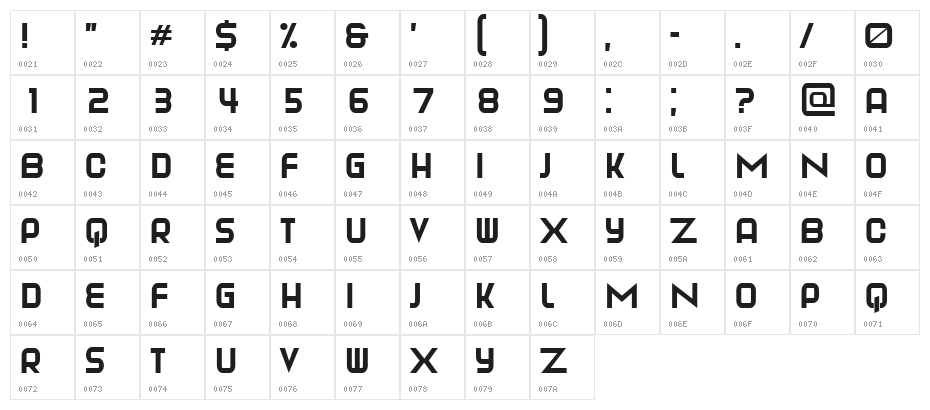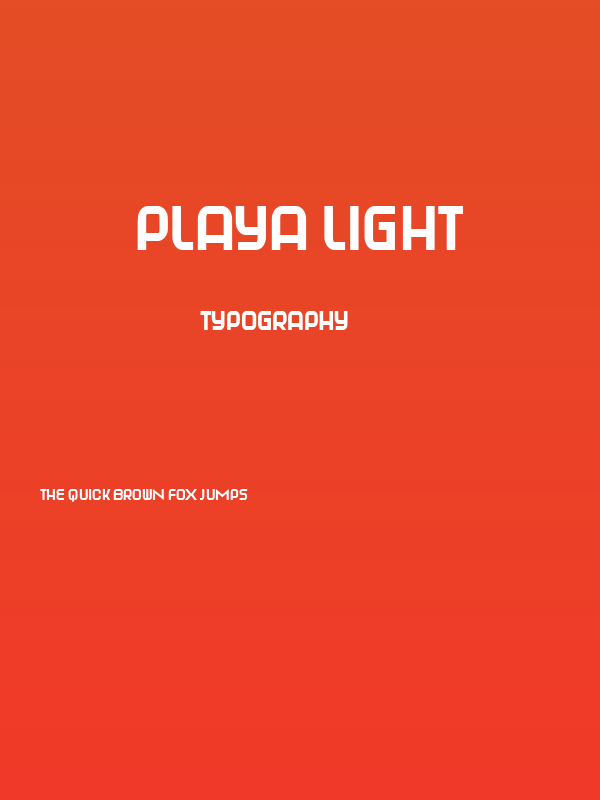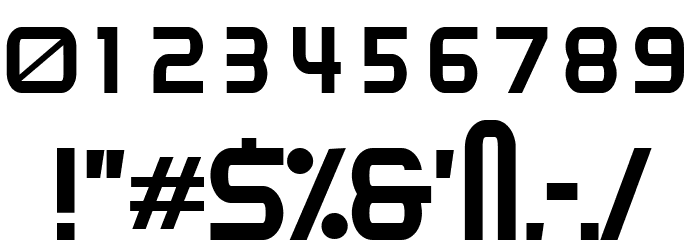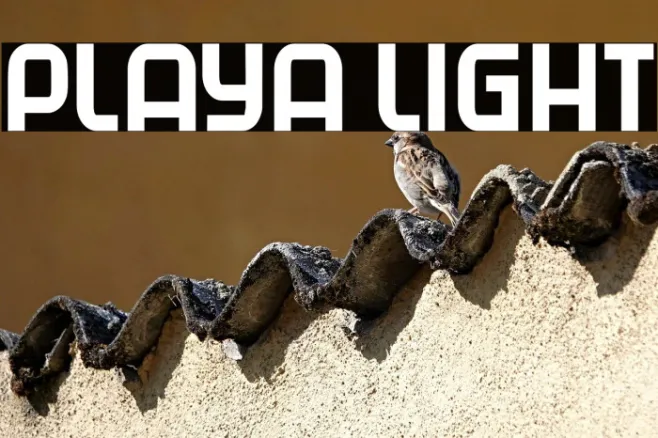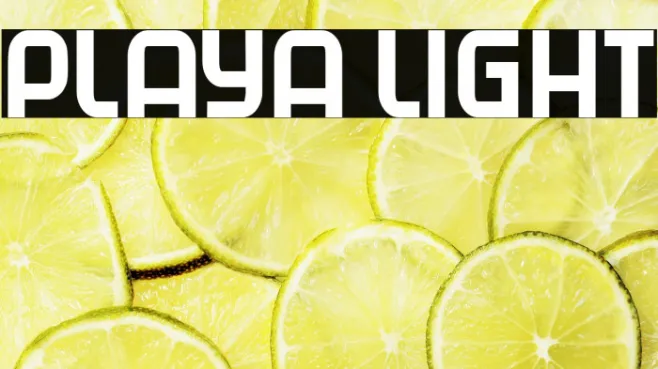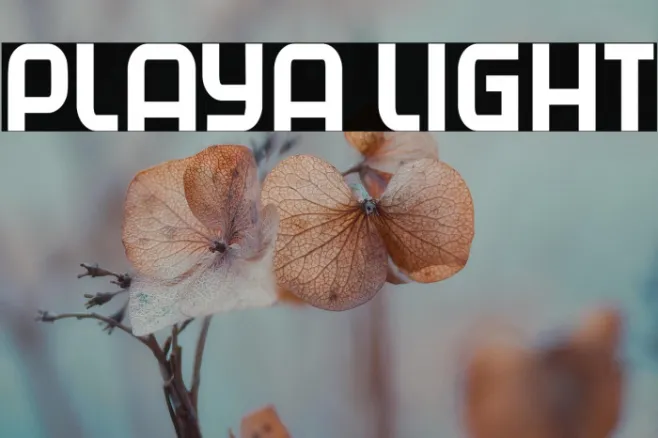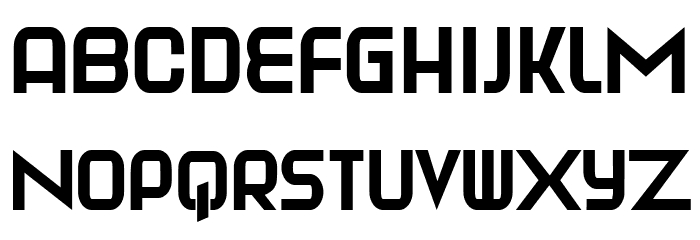
Playa Light Font
Playa Light Description
This font features a geometric and modern design with a bold presence. The characters are constructed with clean, straight lines and sharp angles, giving it a futuristic and tech-inspired look. The uppercase and lowercase letters maintain a consistent height, while the numbers and special characters align seamlessly with the overall style. The font's structure is robust, with a slight emphasis on horizontal and vertical strokes, creating a balanced and harmonious appearance. Its unique design elements, such as the angular cuts and uniform thickness, make it stand out in any design project.
| Use Case | Headlines, Logos, Digital Interfaces |
| Proposed Projects | Ideal for technology branding, futuristic posters, digital interfaces, and video game graphics. |